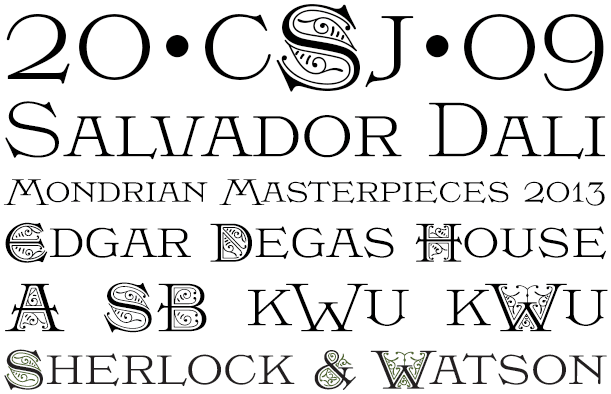
MFC Damask
The inspiration source for MFC Damask is the "Oxford No. 2" typestyle from the 1893 "Cleveland Type Foundry Catalogue & Price List of Type and Materials". The original design contained stylized numerals and smallcaps which have been normalized in our revival rendition. There are also both baseline and vertically centered smallcaps for titling and decorative monogramming use.
MFC Damask comes complete with both Pro and Standard format fonts. For those with programs that can take advantage of OpenType features, the Pro fonts are for you, but for others without the ability to use OpenType features, we've created separate fonts that make up the styles contained in the Pro font.